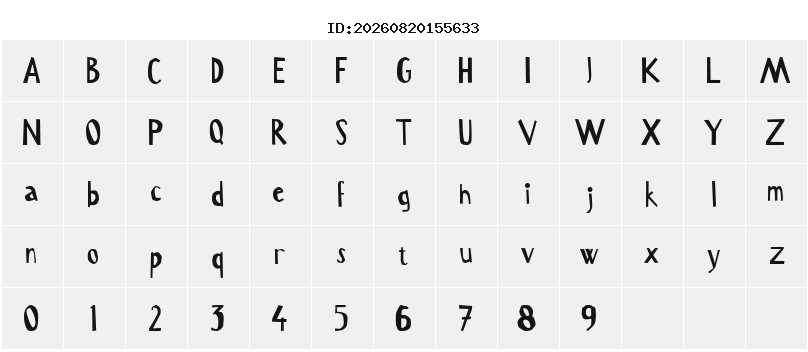
• Font Name: Serru
• Full Font Name: Serru
• PostScript Name: Serru
About Serru.ttf
Serru.ttf is a modern, elegant sans-serif font designed for ultimate readability and visual harmony. Perfect for branding, headlines, web design, and print materials.